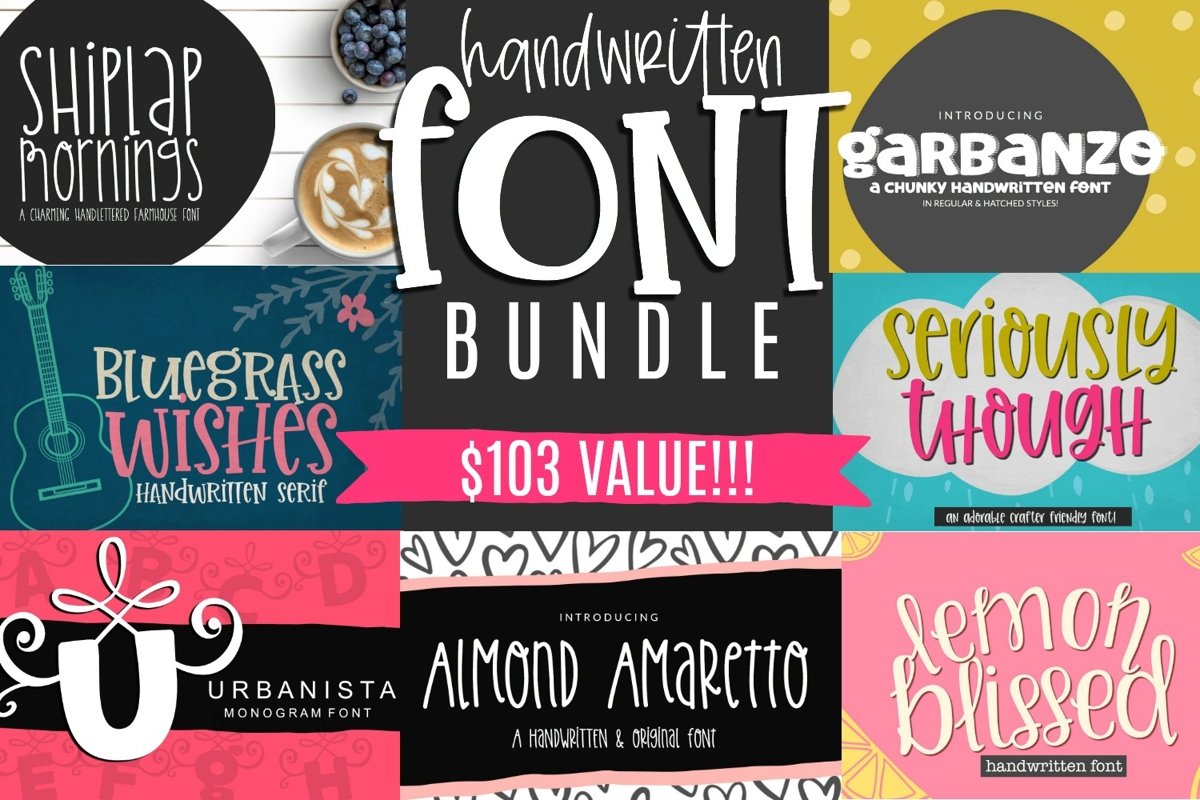
Handwritten Font Bundle for Crafters - 7 Cut Friendly Fonts
This Handwritten Font Bundle features 7 handwritten fonts for crafters! Each font is optimized for cutting with Cricut and Silhouette!
SS Lemon Blissed
SS Garbanzo (Hatched & Regular)
SS Seriously Though & Seriously Though Two
SS Urbanista
SS Shiplap Mornings
SS Bluegrass Wishes (Regular & Solid)
SS Almond Amaretto